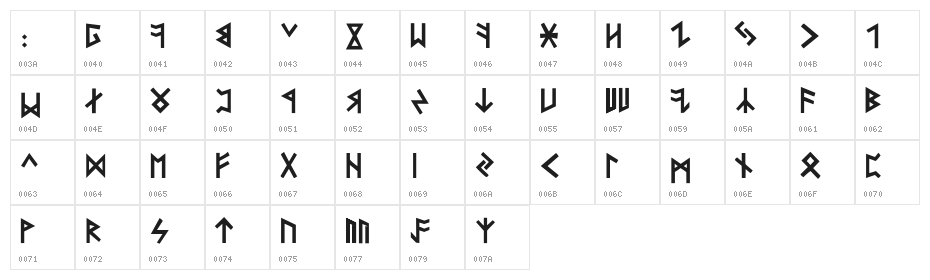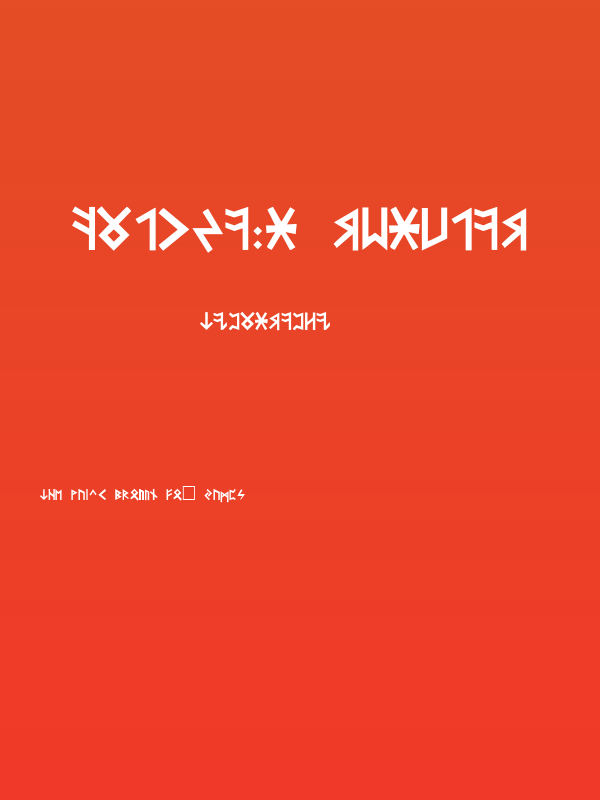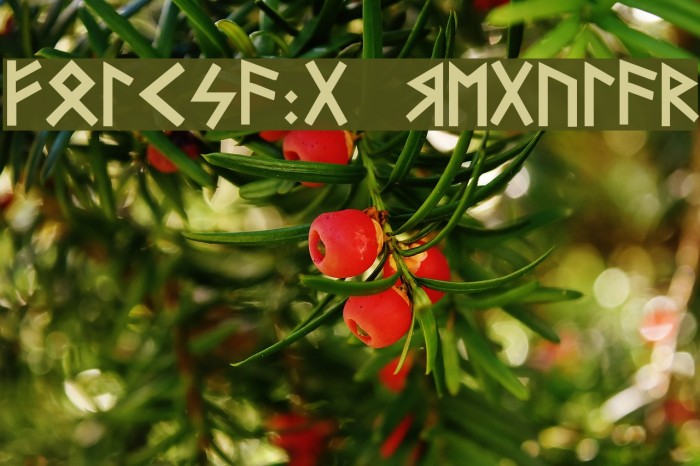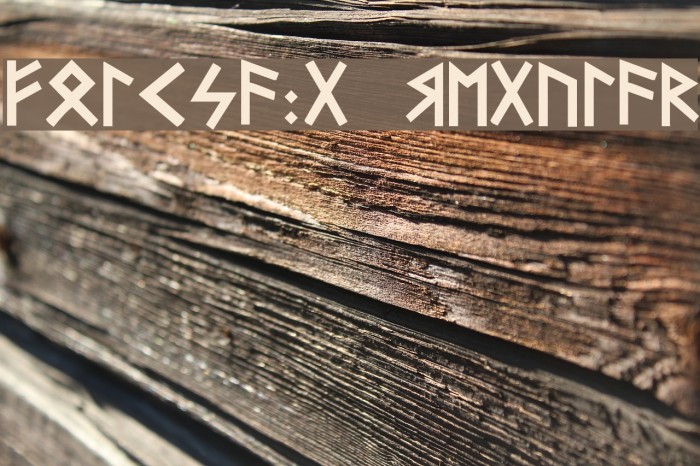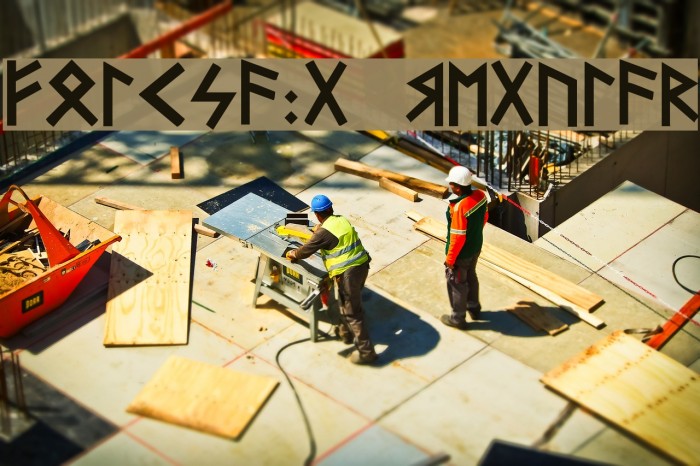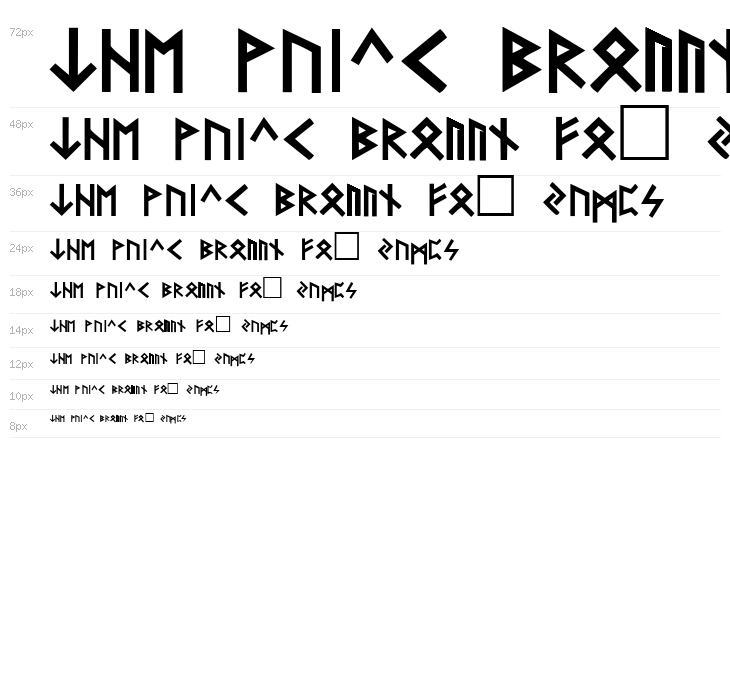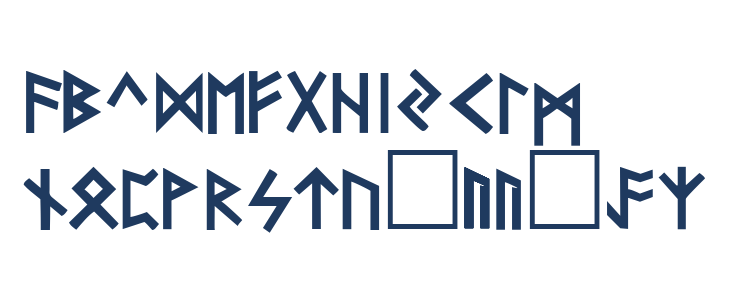
folksa:g Regular Font
folksa:g Regular Description
This font features a unique and bold design inspired by ancient runic symbols. The characters are angular and geometric, with sharp edges and a distinct, almost mystical appearance. Each letter is crafted to resemble a rune, giving it a historical and enigmatic feel. The font lacks traditional curves, opting instead for straight lines and pointed angles, which contribute to its striking and memorable look. This style is particularly suited for projects that aim to evoke a sense of mystery, history, or fantasy. The overall design is consistent across both uppercase and lowercase letters, maintaining the same thematic elements throughout.
| Proposed Projects | Ideal for fantasy-themed designs, historical projects, game titles, or any creative work requiring a mystical or ancient aesthetic. |